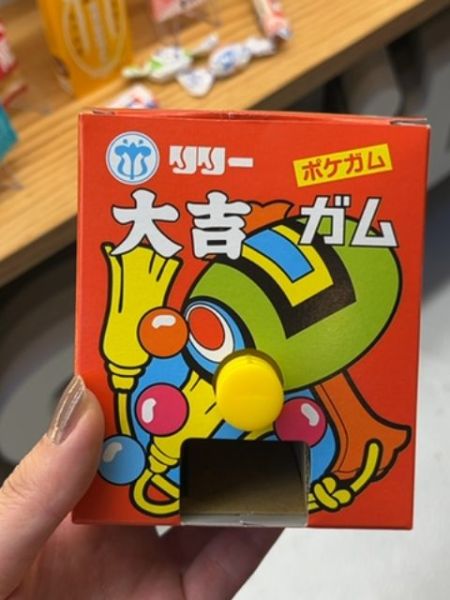
Daikichi Gum
Daikichi Gum is a traditional Japanese gum known for its variety of sweet flavors and colorful presentation. It offers a fun, nostalgic chewing experience reminiscent of Japanese childhood snacks.
The typography features bold, playful fonts with a slight retro feel, enhancing the nostalgic theme. The Japanese characters are displayed in a strong, slightly rounded style, emphasizing clarity and approachability. The use of white text against a vibrant background ensures high visibility and impact.
The packaging is vibrant and playful, featuring bold colors and cartoonish graphics that draw the eye. The bright red background contrasts with the colorful illustration and the prominent yellow button, mimicking a gumball machine design.
- The gum is known for its assortment of unique flavors.
- The packaging design mimics a classic gumball machine.
- It is a nostalgic treat popular among Japanese children.